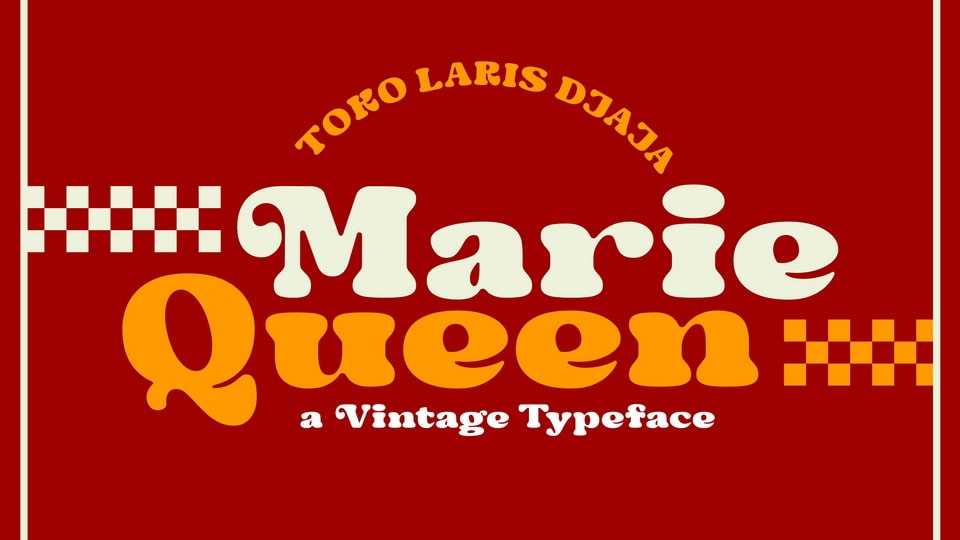
Download Marie Queen font, a strong, tough, long-lasting retro typeface. Inspired by retro bold typography, Marie Queen feels playfully nostalgic and delivers an incredible vintage retro aesthetic.
Designer: Toko Laris Djaja